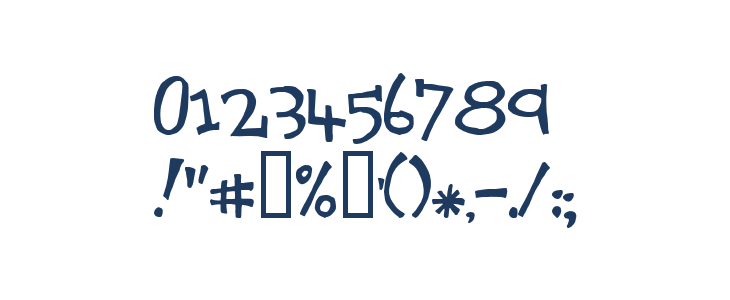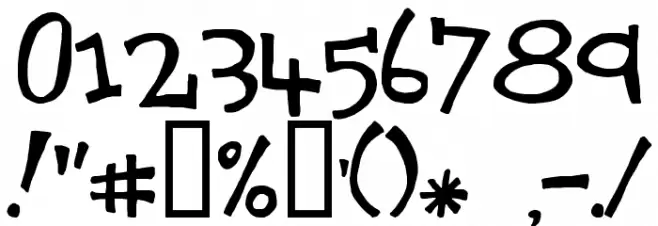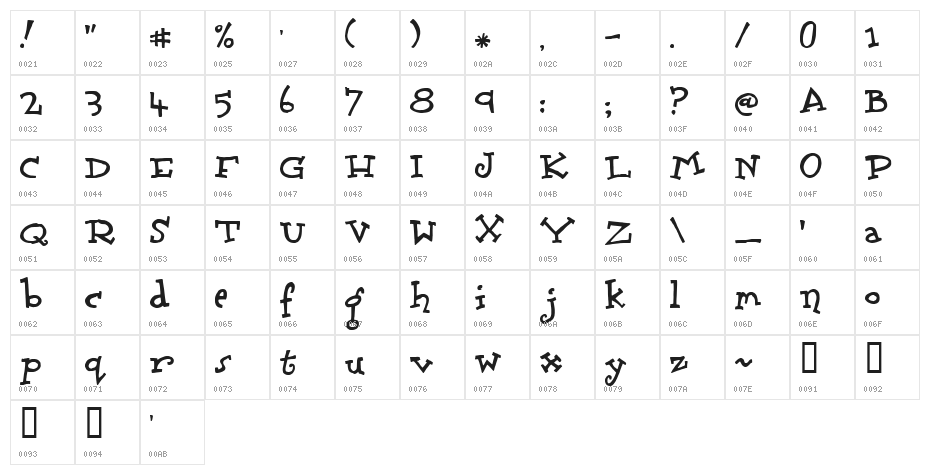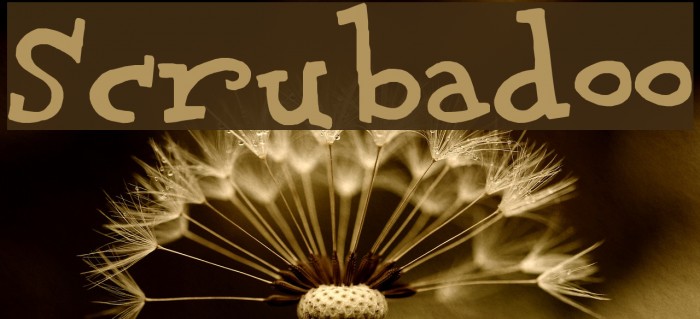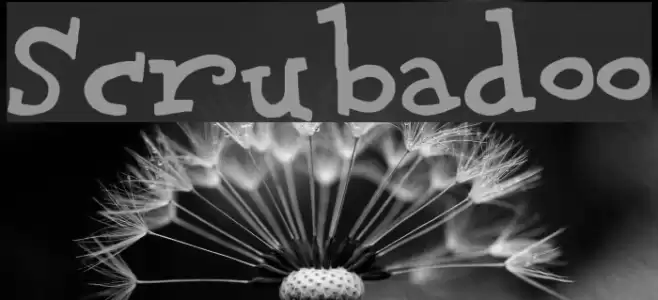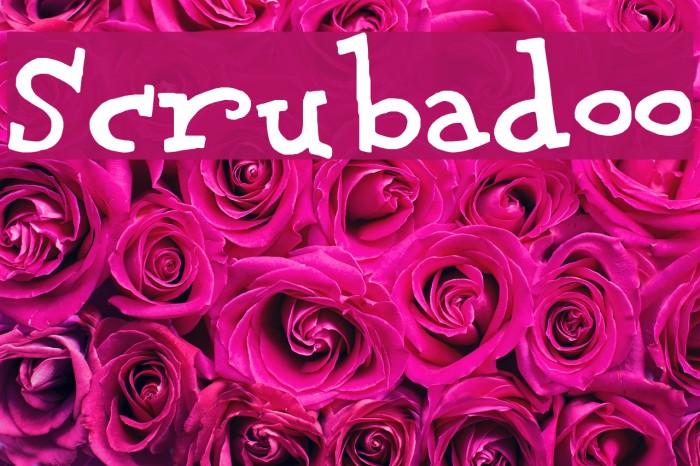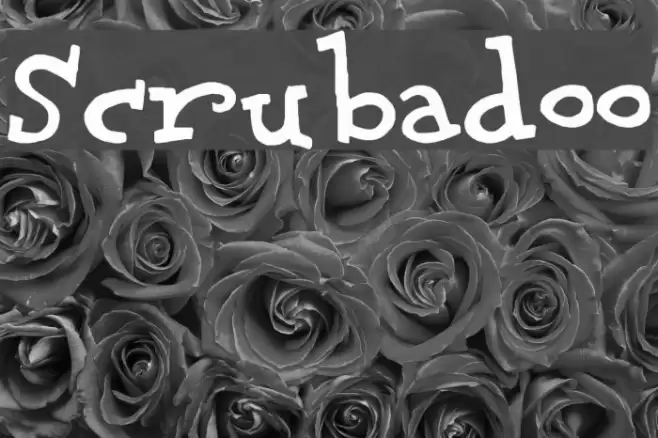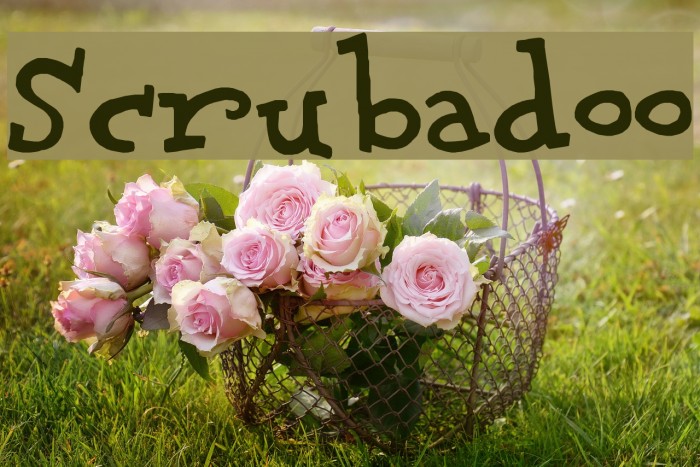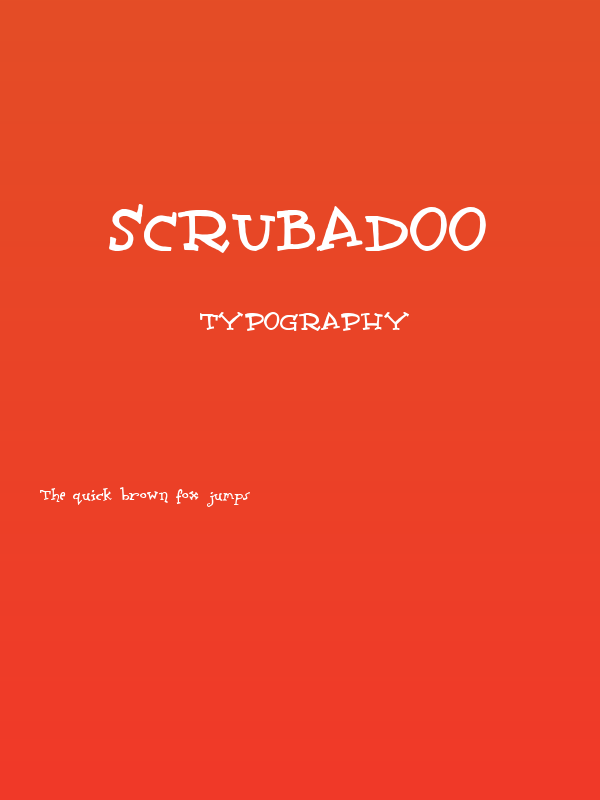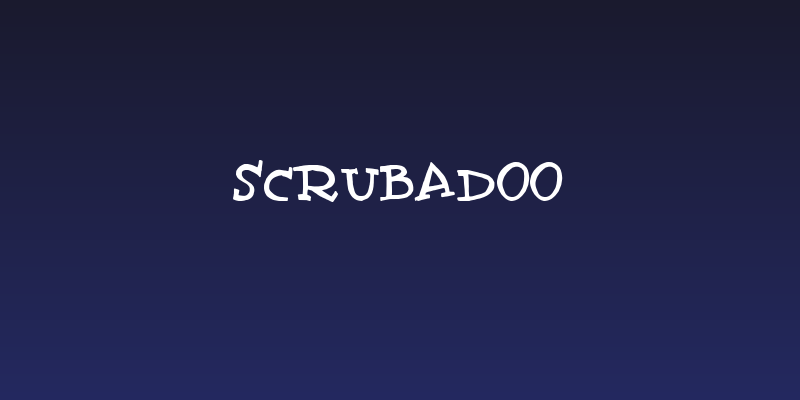
Scrubadoo Font
Scrubadoo Description
This font exhibits a playful and whimsical style, characterized by its irregular and slightly distorted letterforms. The uppercase and lowercase letters have a hand-drawn appearance, with varying stroke widths that add to its quirky charm. The numbers and special characters maintain this playful aesthetic, making the font suitable for creative and informal applications. The overall design is reminiscent of a child's handwriting, with a sense of spontaneity and fun. The font's unique style makes it stand out, offering a distinct personality that can enhance any design project.
SCRUBADOO UPPERCASE
SCRUBADOO LOWERCASE
SCRUBADOO OTHER CHARS